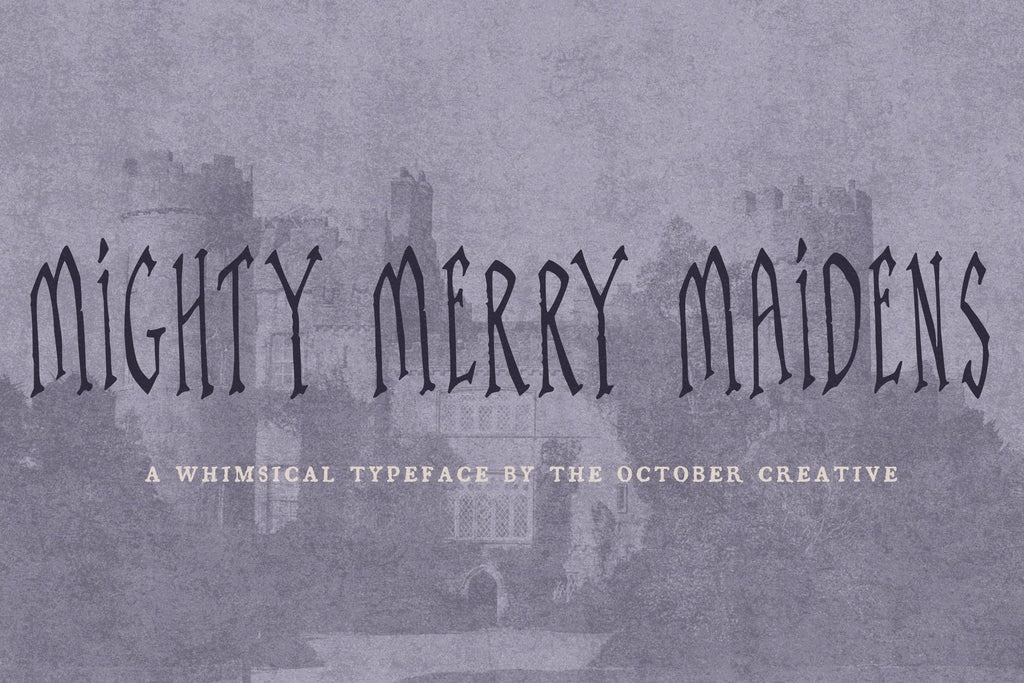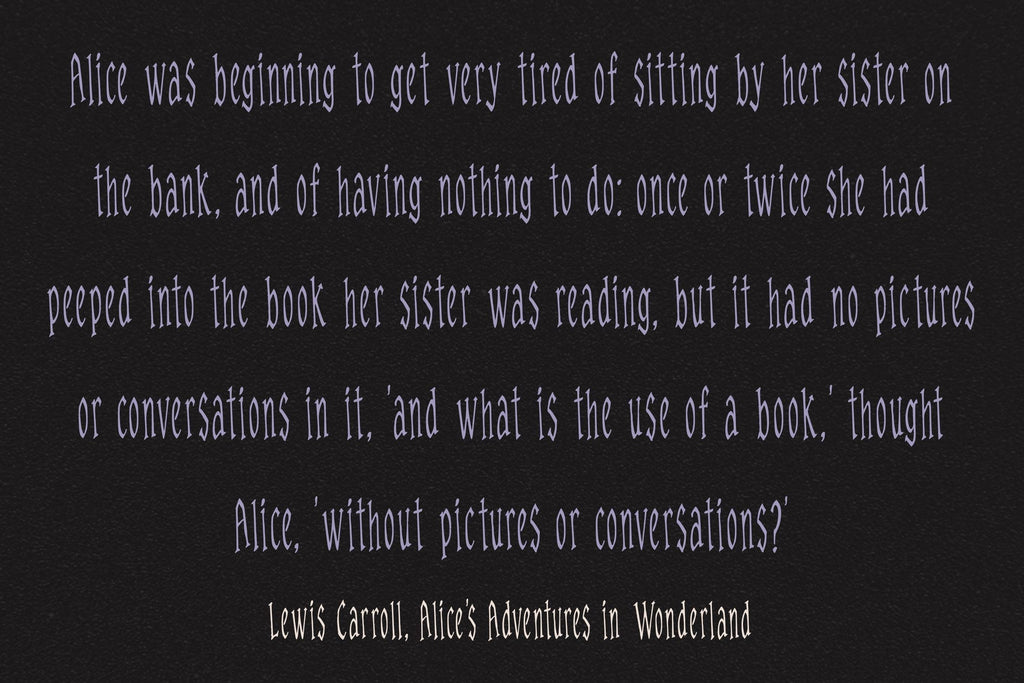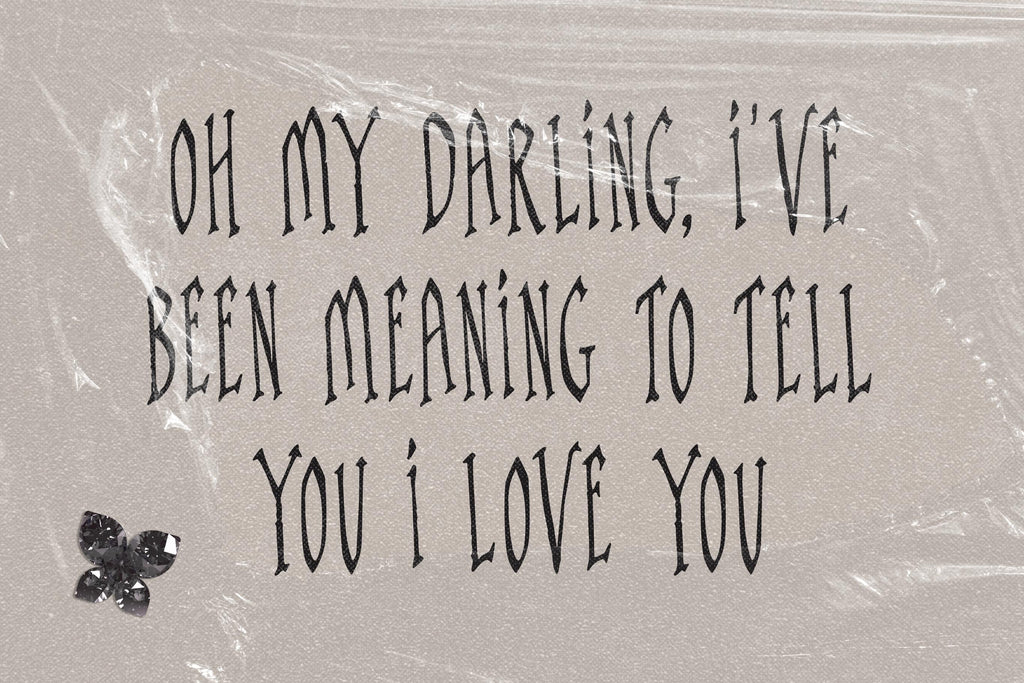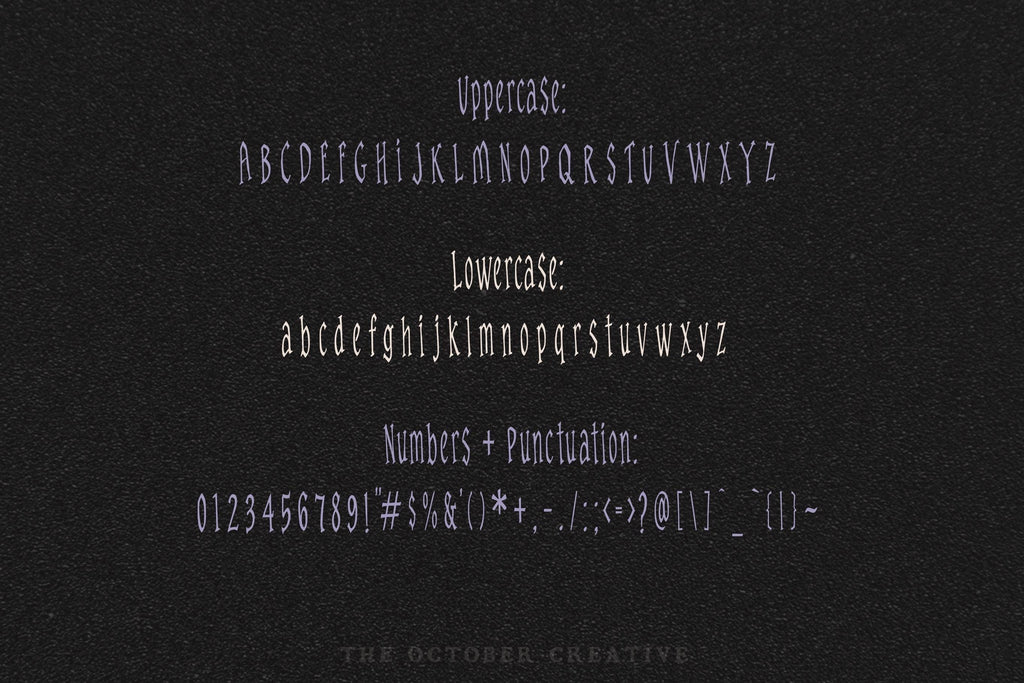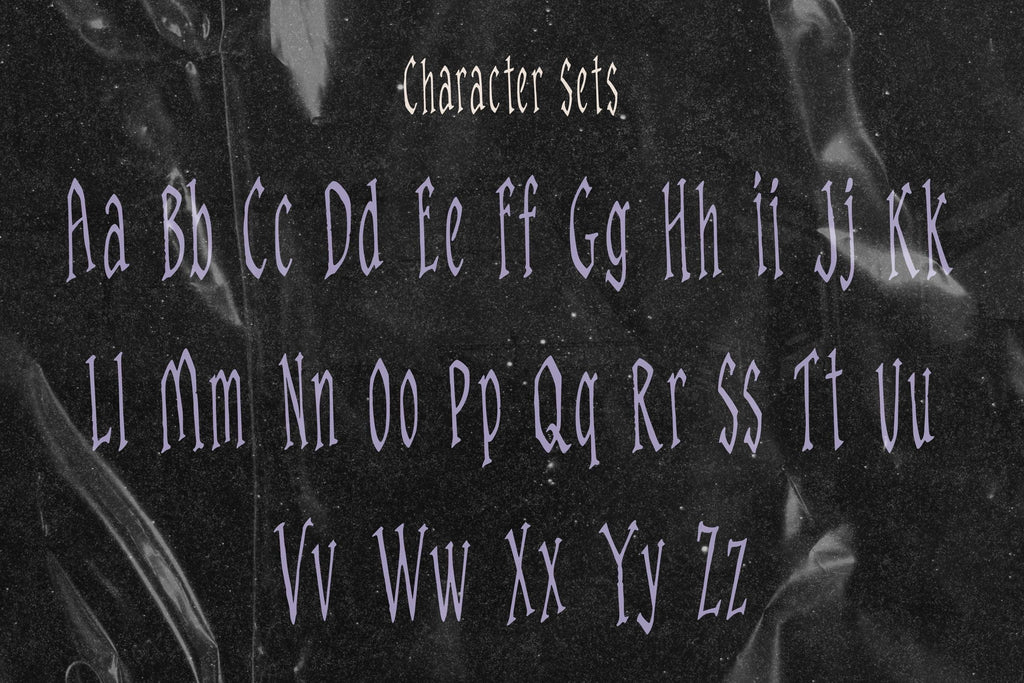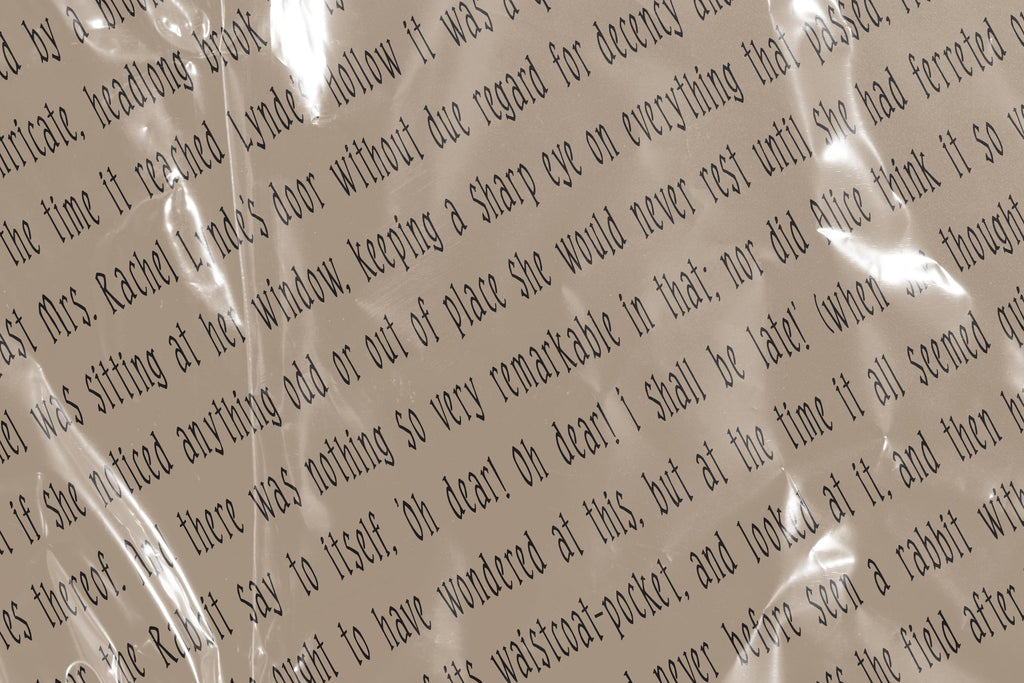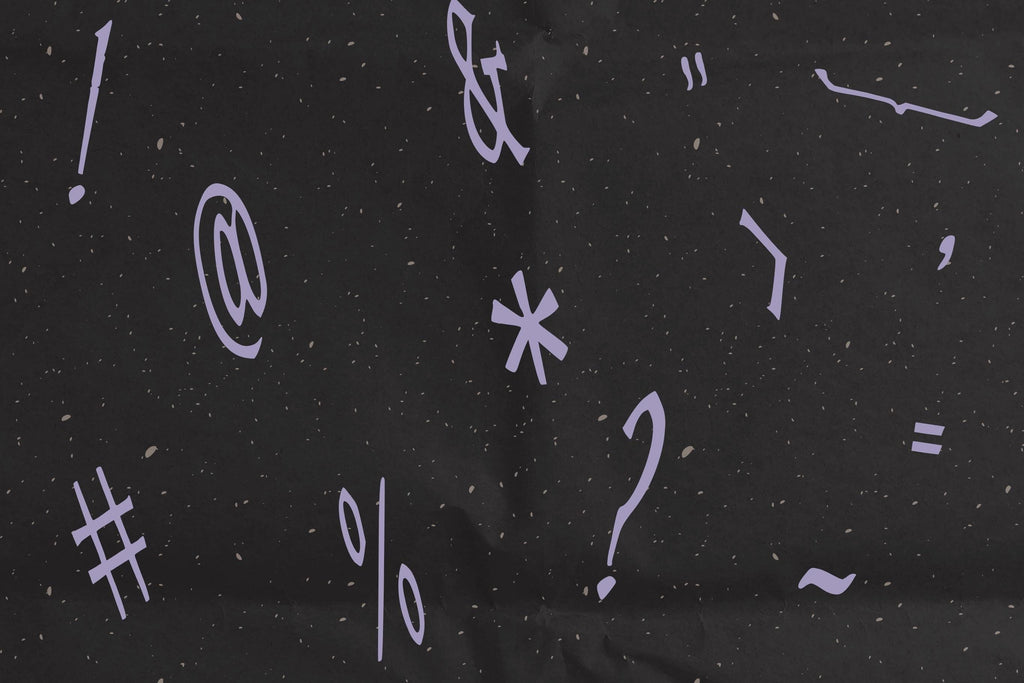
Mighty Merry Maidens Font
Mighty Merry Maidens is a medieval fairytale font with tall, narrow letters and flared, pointed strokes. It fits Renaissance faire signs, fantasy book covers, tabletop game maps, and castle-themed invitations.